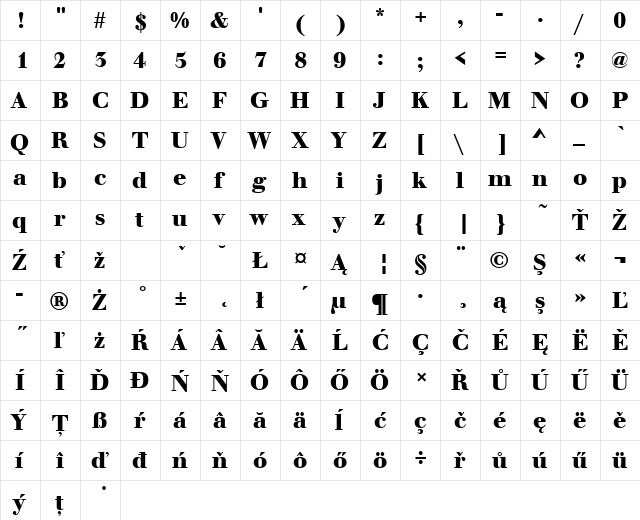
WalbaumBucTEE Bold
Design Context for WalbaumBucTEE Typeface
WalbaumBucTEE offers clean, dependable letterforms without strong stylistic allegiance, making it a practical choice for designers who need flexibility. The heavy weight commands attention and anchors typographic hierarchies.